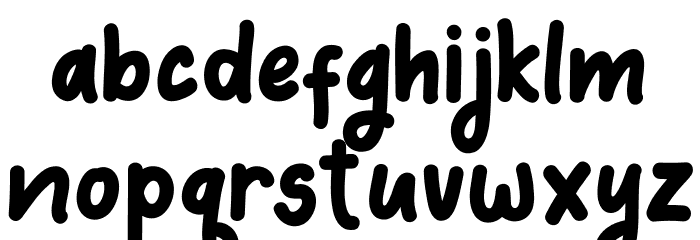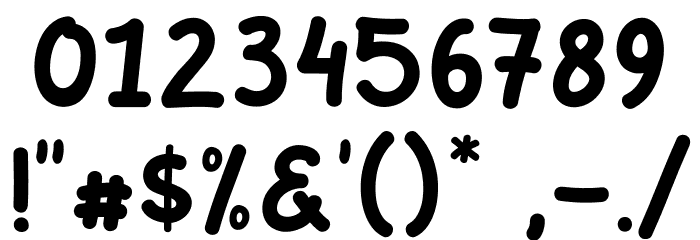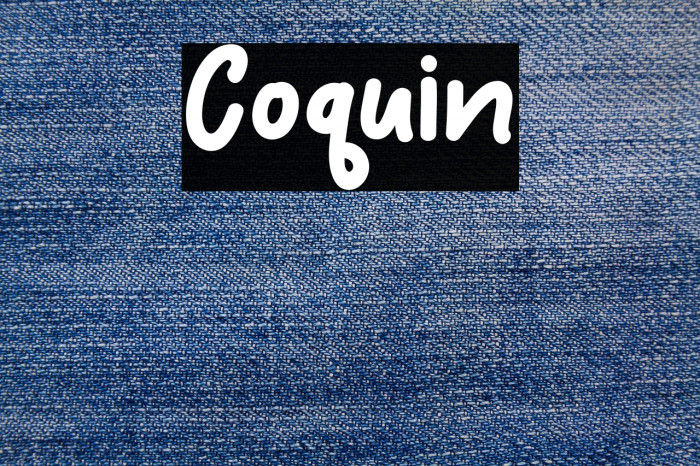
Coquin Font
This playful and bold font features a handwritten style with a lively and energetic appearance. The characters are rounded and slightly irregular, giving them a whimsical and informal look. The uppercase and lowercase letters maintain a consistent style, with a slight slant that adds to the dynamic feel. The numbers and special characters are equally expressive, making them suitable for creative projects. The font's thick strokes and rounded edges contribute to its friendly and approachable vibe, making it ideal for designs that aim to convey warmth and personality.
A playful, bold handwritten font with rounded, lively characters.
- Proposed Projects: Ideal for children's books, playful branding, greeting cards, and creative posters.
- Overall Style: Playful